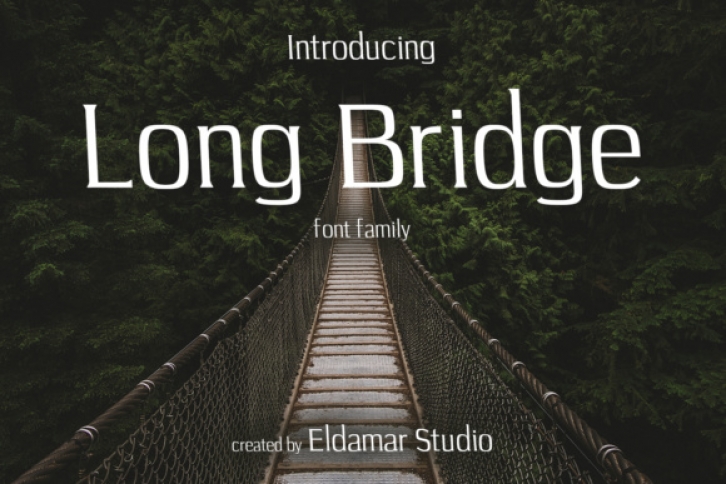
Long Bridge is a wonderful font with a unique and detailed look. It’s beautiful with a wide-set spacing and will give your design a striking and classy look.
Perfect for gorgeous logos, displays, headers, invitations, save the dates, weddings, titles, web layouts and branding, etc.